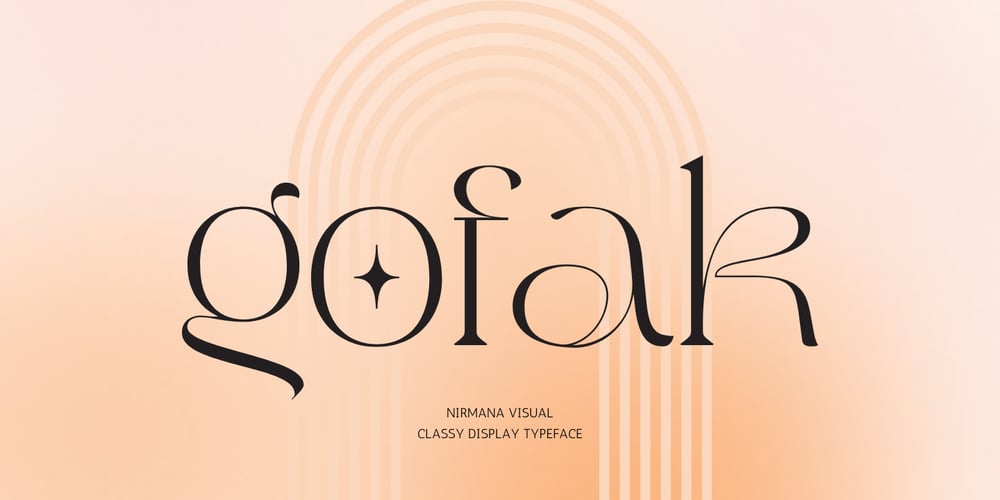
Gofak Classy
Gofak Classy font
Gofak Classy Font Family was designed by Sigit Dwipa and published by Nirmana Visual. Gofak Classy contains 1 styles and family package options. Gofak Classy Font offers beautiful typographic harmony for a diversity of design projects, including logos & branding, social media posts, advertisements & product designs.